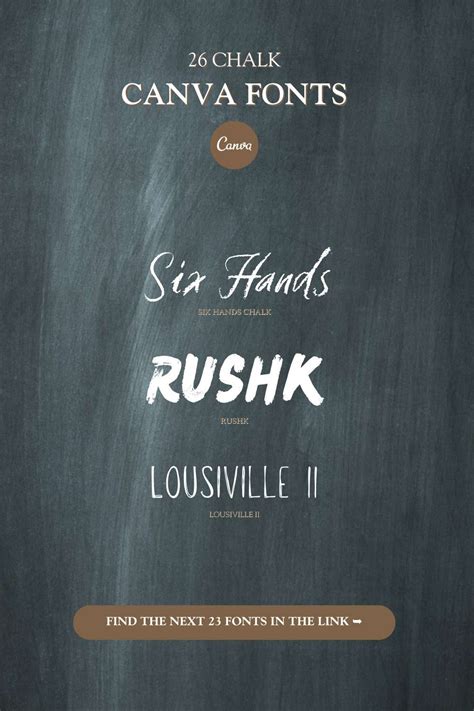
ChalkLike Fonts on Canva Best Options For Blackboard Look & Feel
Chalkboard Font In Canva. Web berton is one of the best chalk fonts in canva that you can use for bringing elegance and readability to small details. Use a dark background, such as.
Use a dark background, such as. Web berton is one of the best chalk fonts in canva that you can use for bringing elegance and readability to small details. Web top 26 chalk fonts in canva.
Web berton is one of the best chalk fonts in canva that you can use for bringing elegance and readability to small details. Web top 26 chalk fonts in canva. Use a dark background, such as. Web berton is one of the best chalk fonts in canva that you can use for bringing elegance and readability to small details.